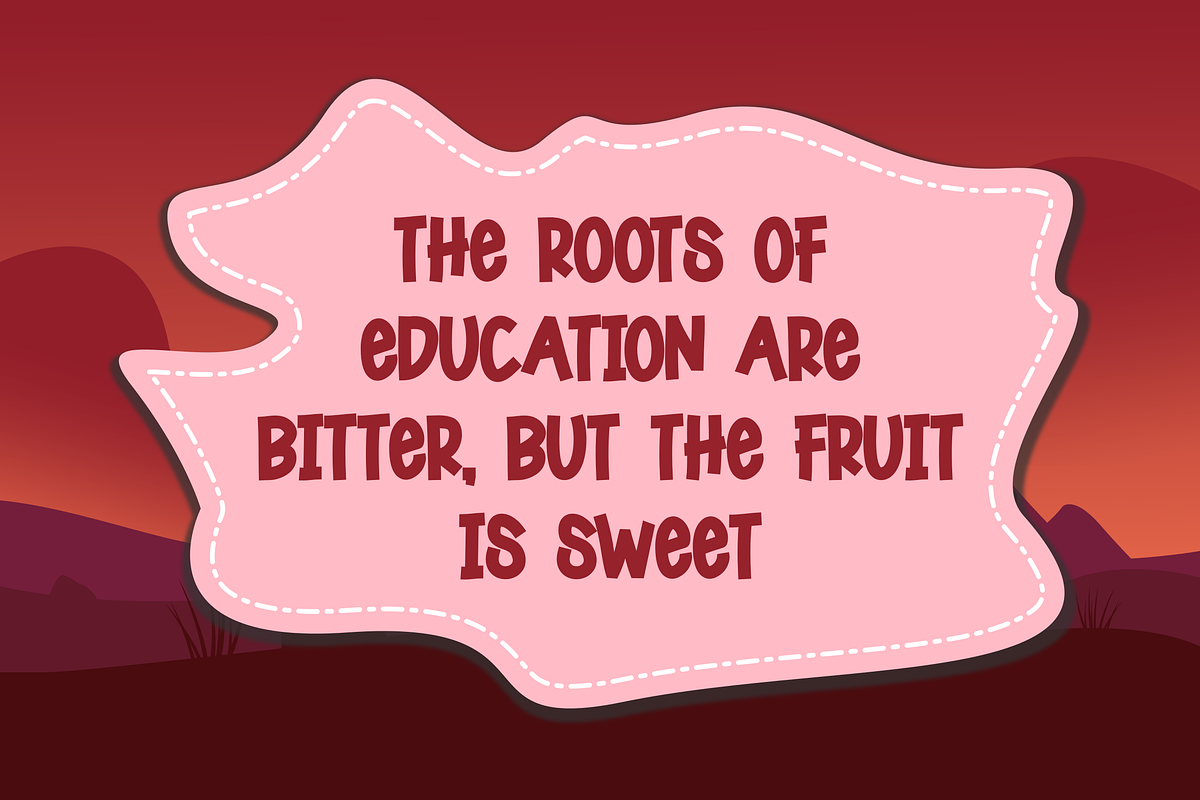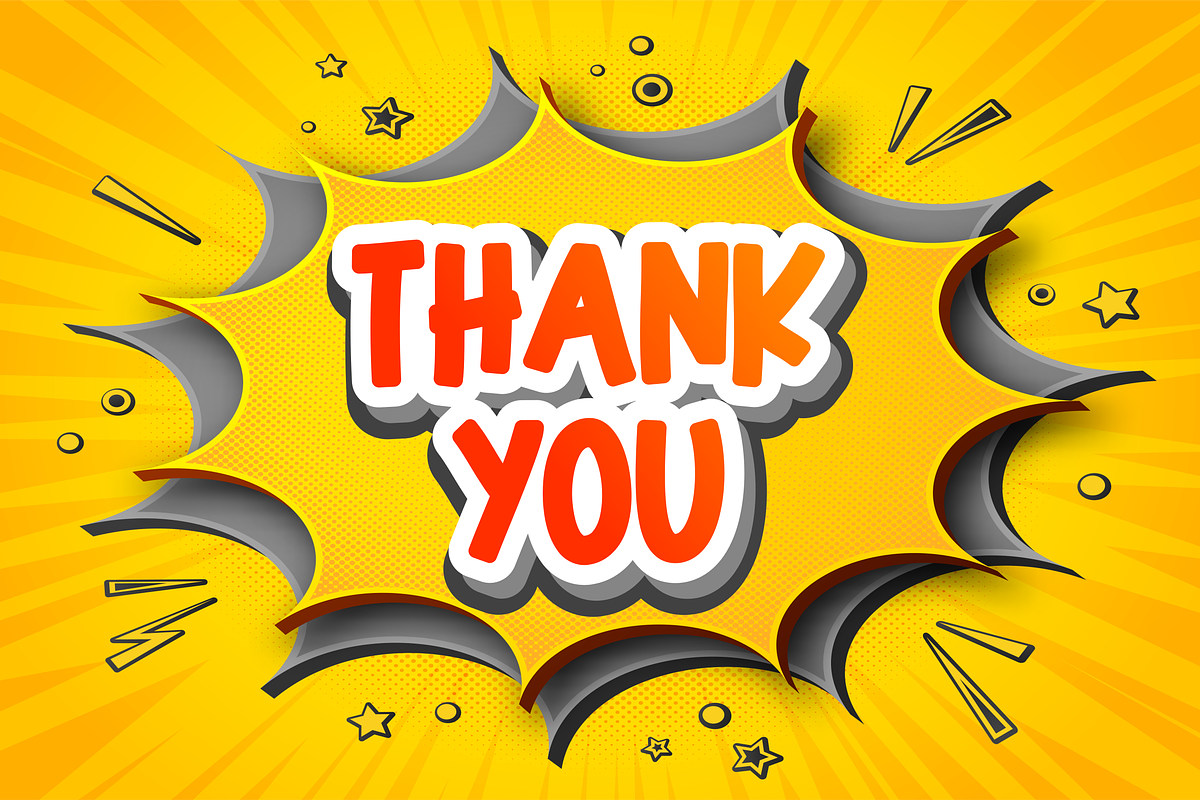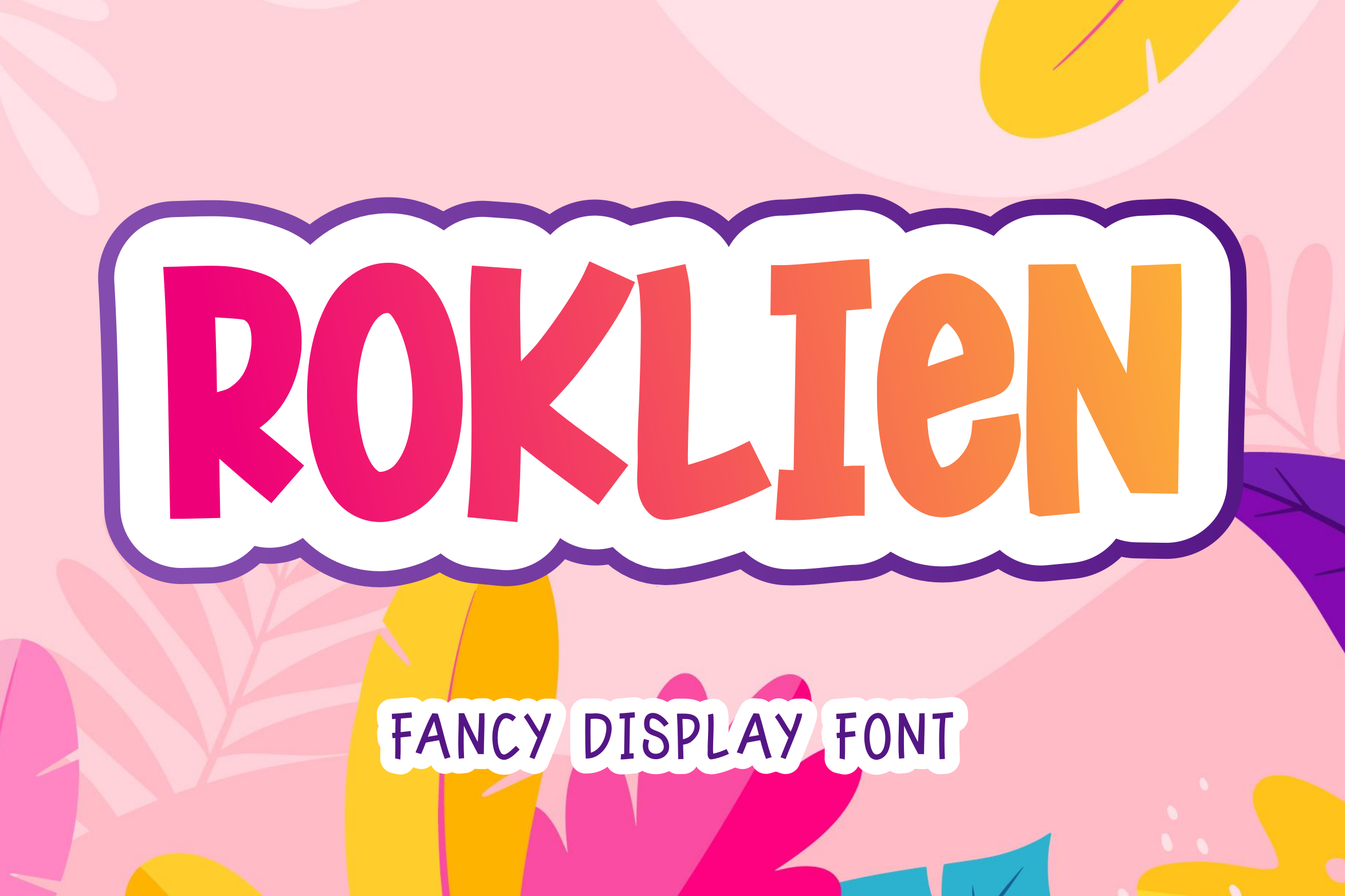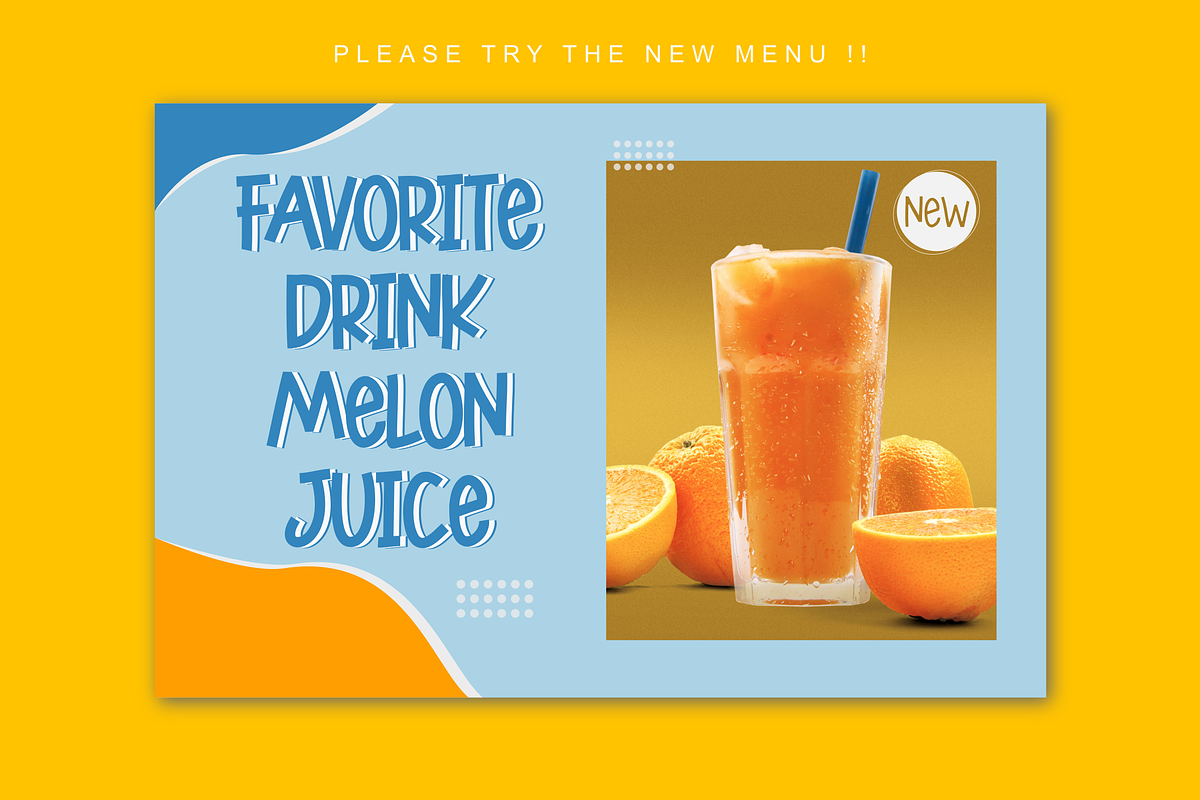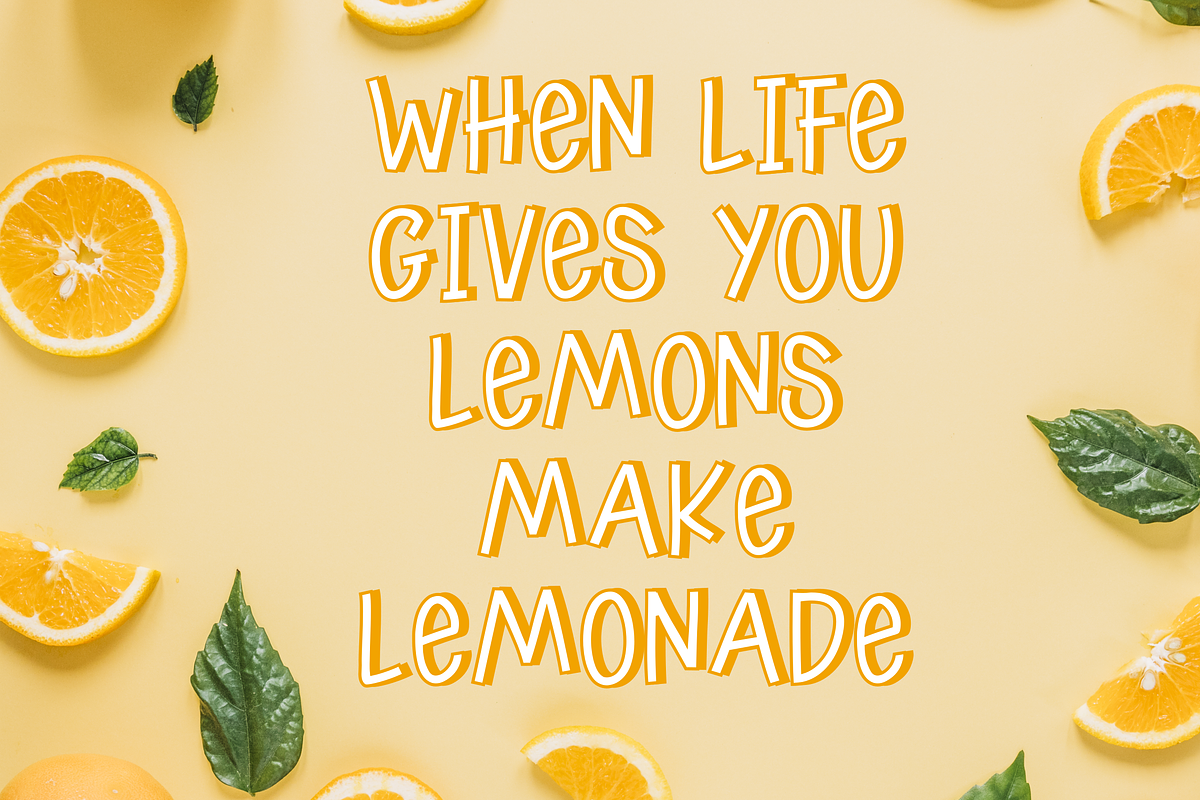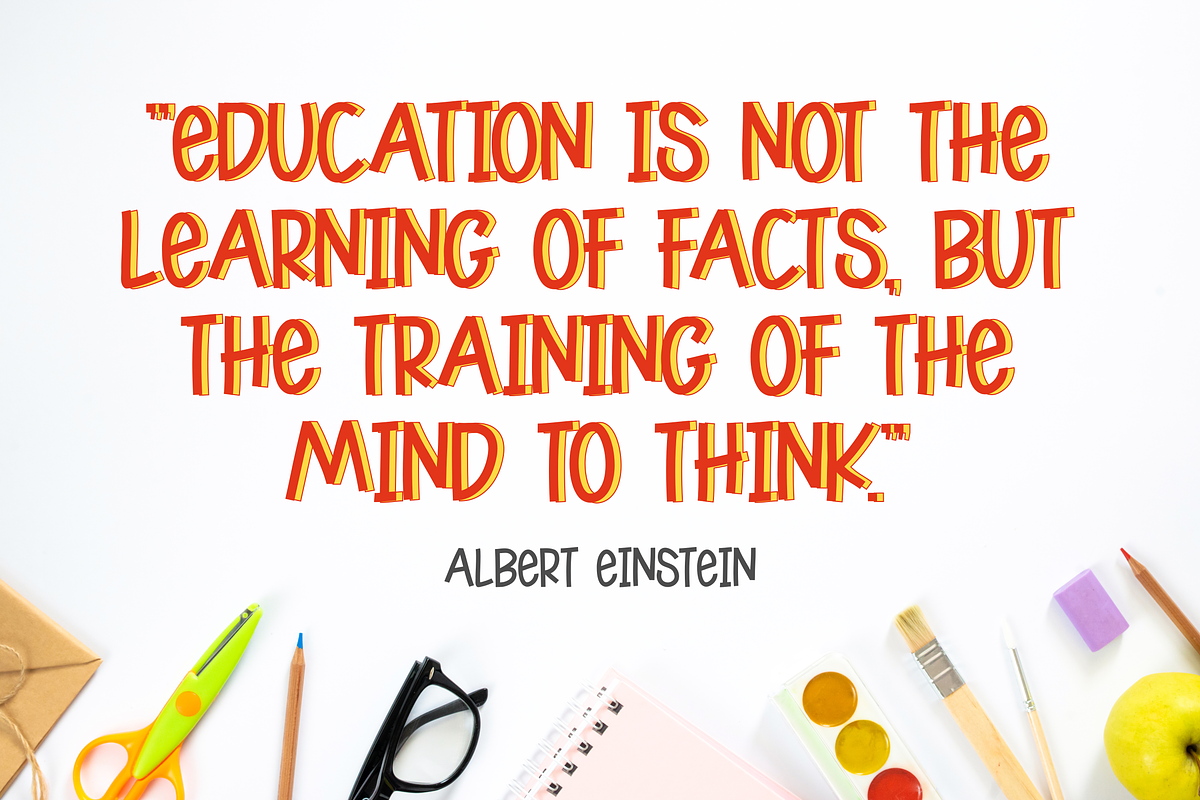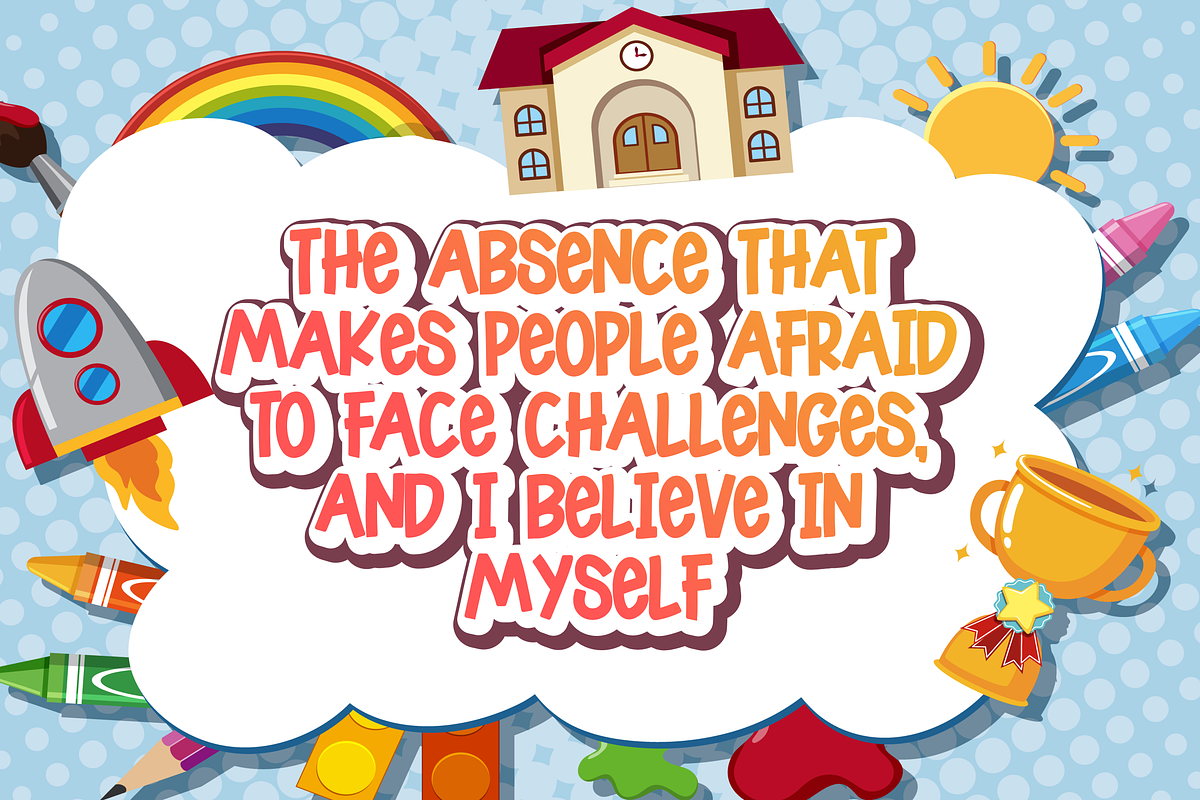
Roklien || Fancy Display Font
Roklien is a childish, easy-to-read display font that conveys impeccable friendliness. Whether you’re using it for crafts, digital design, presentations, or making greeting cards, this font has the potential to become your favorite go-to font, no matter the occasion!